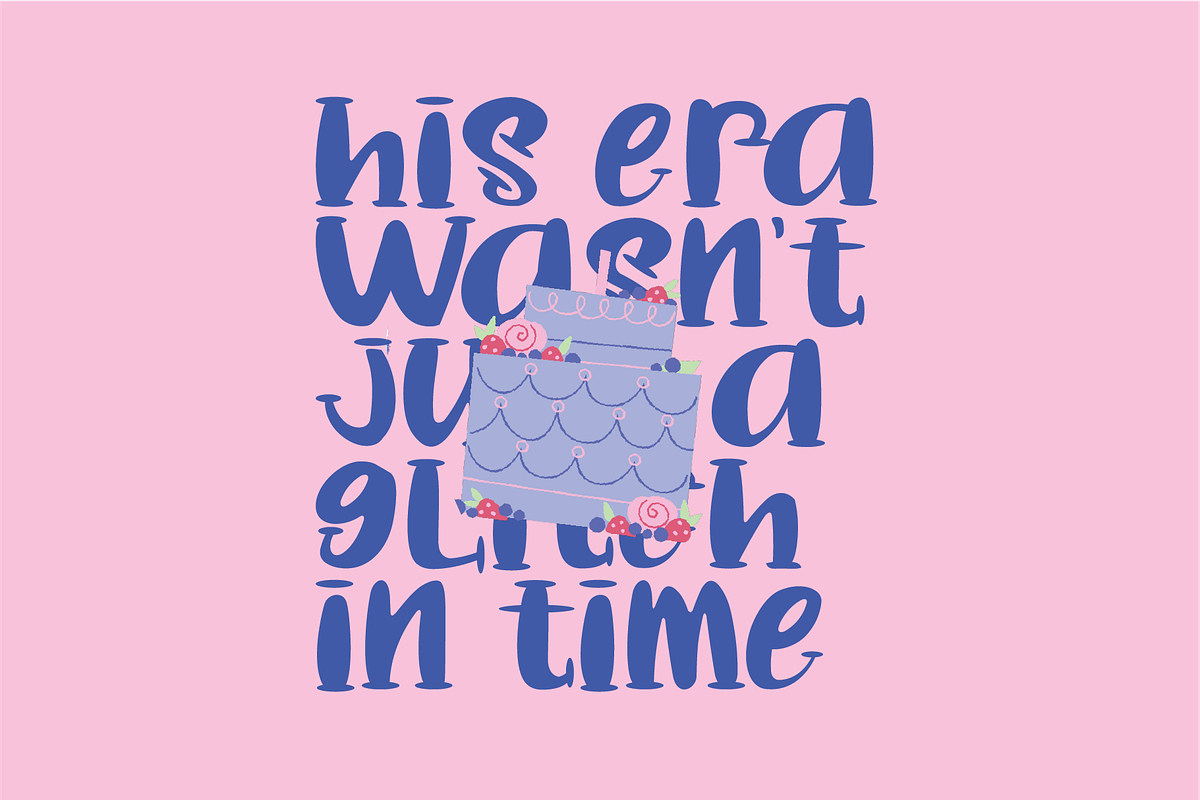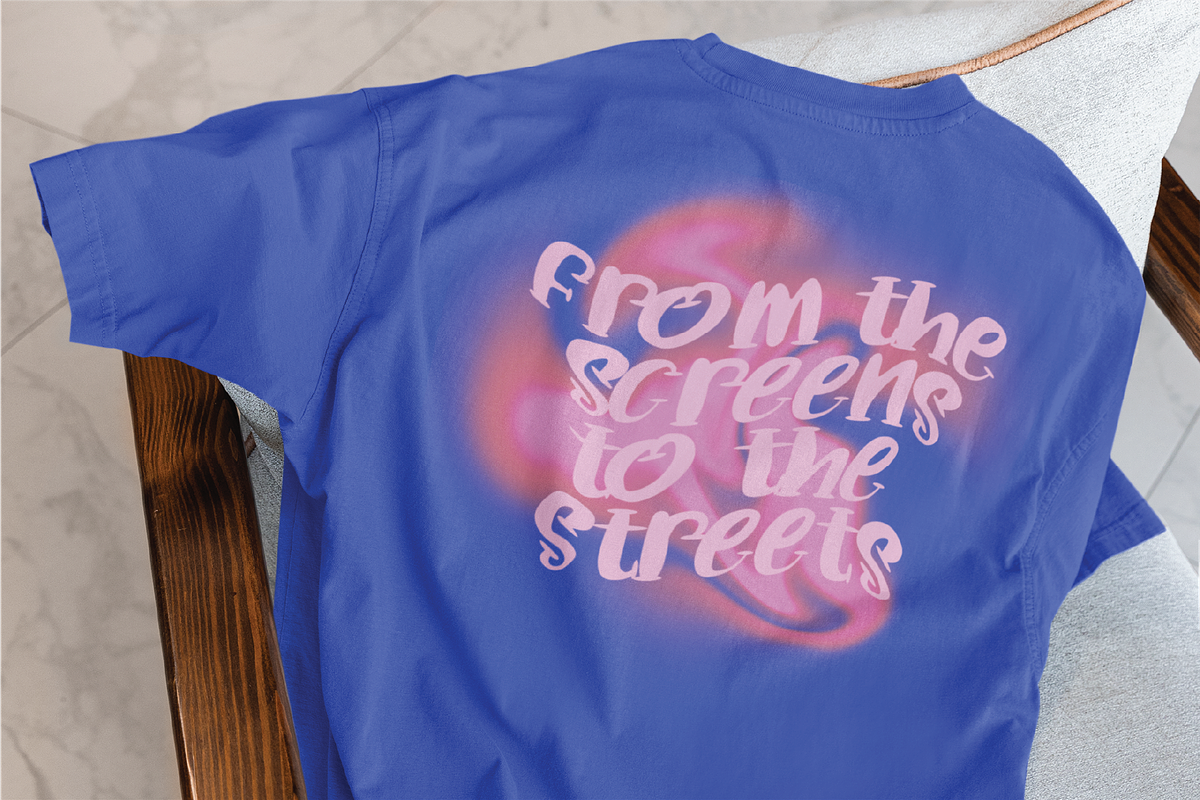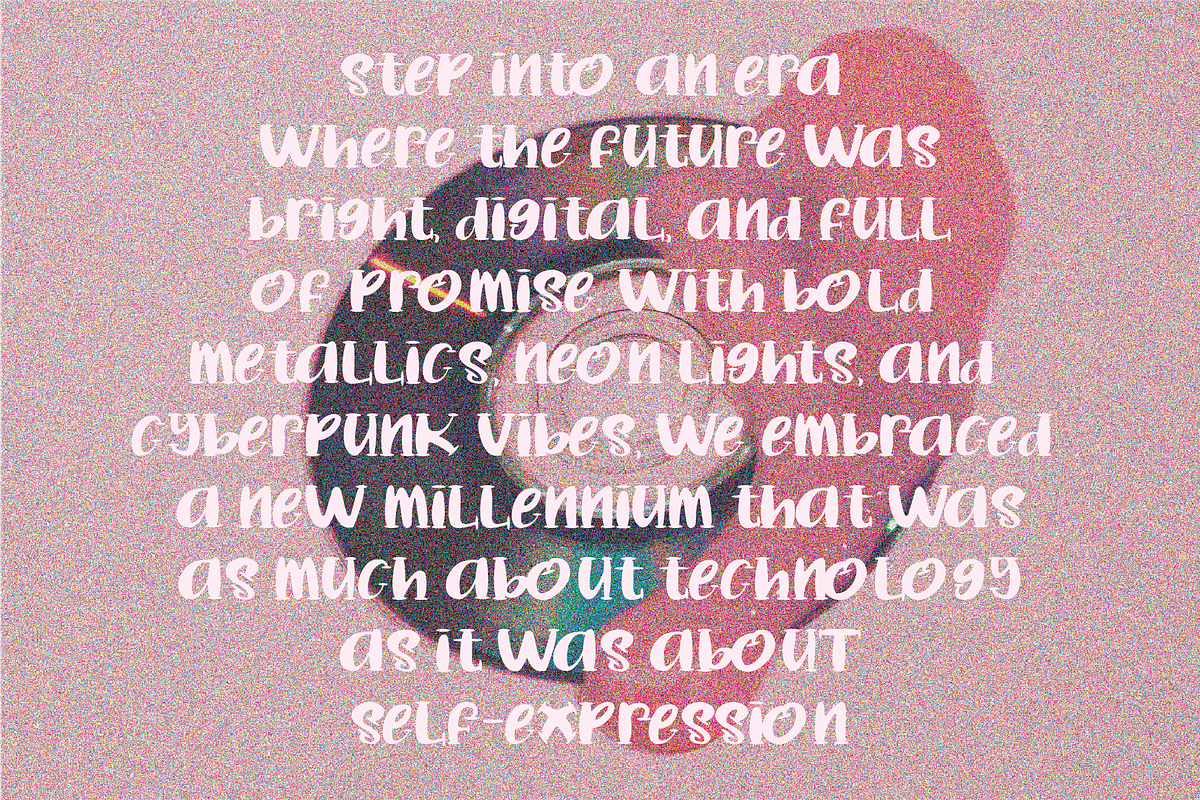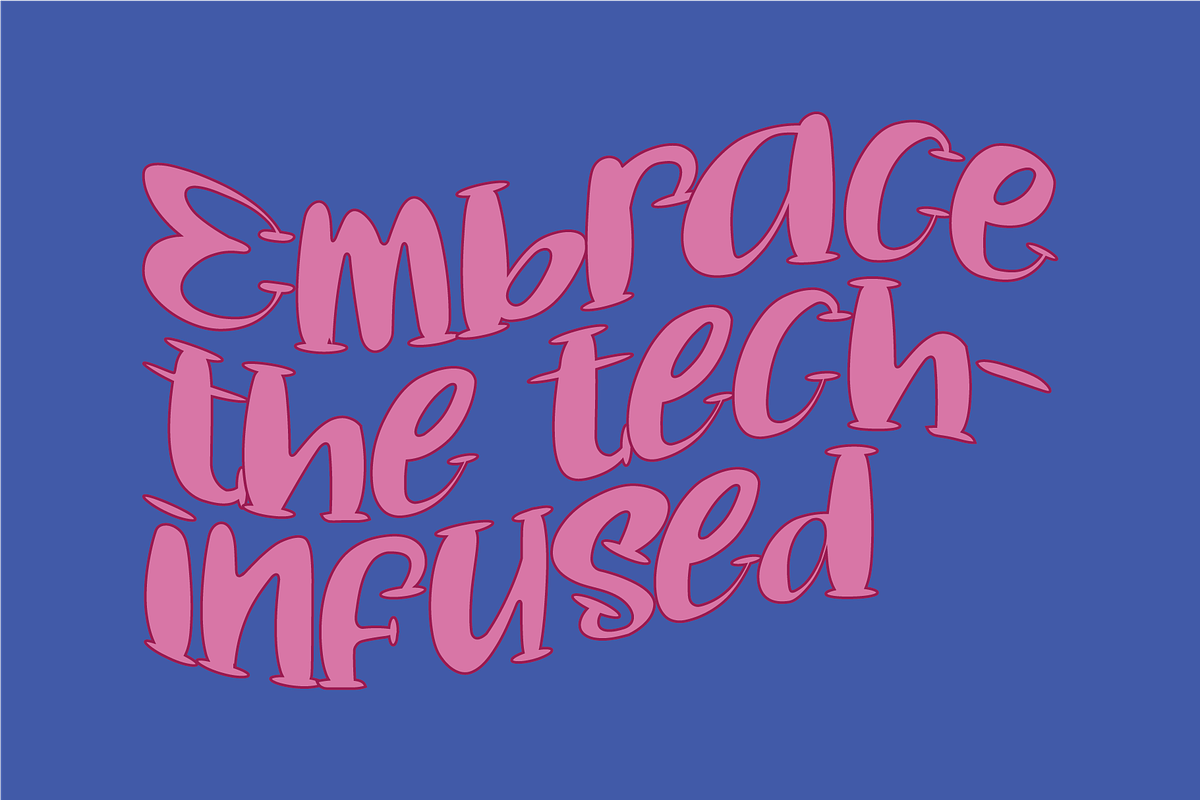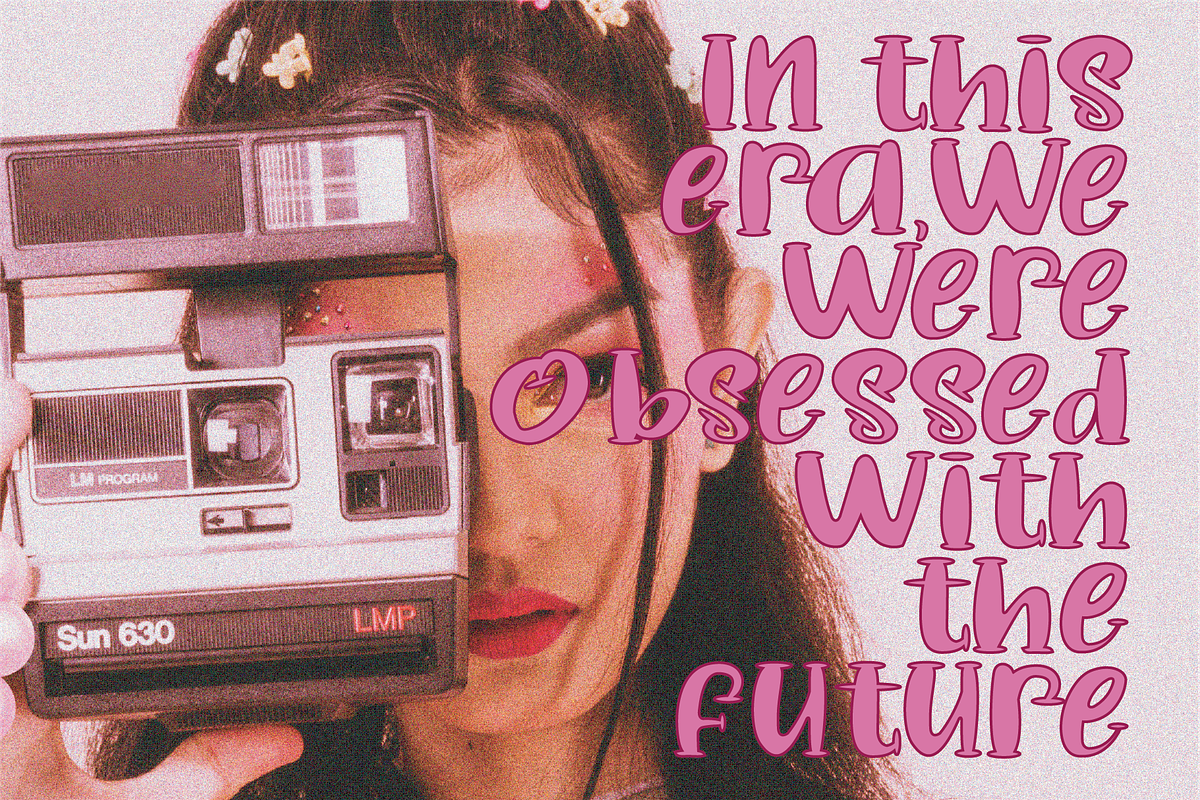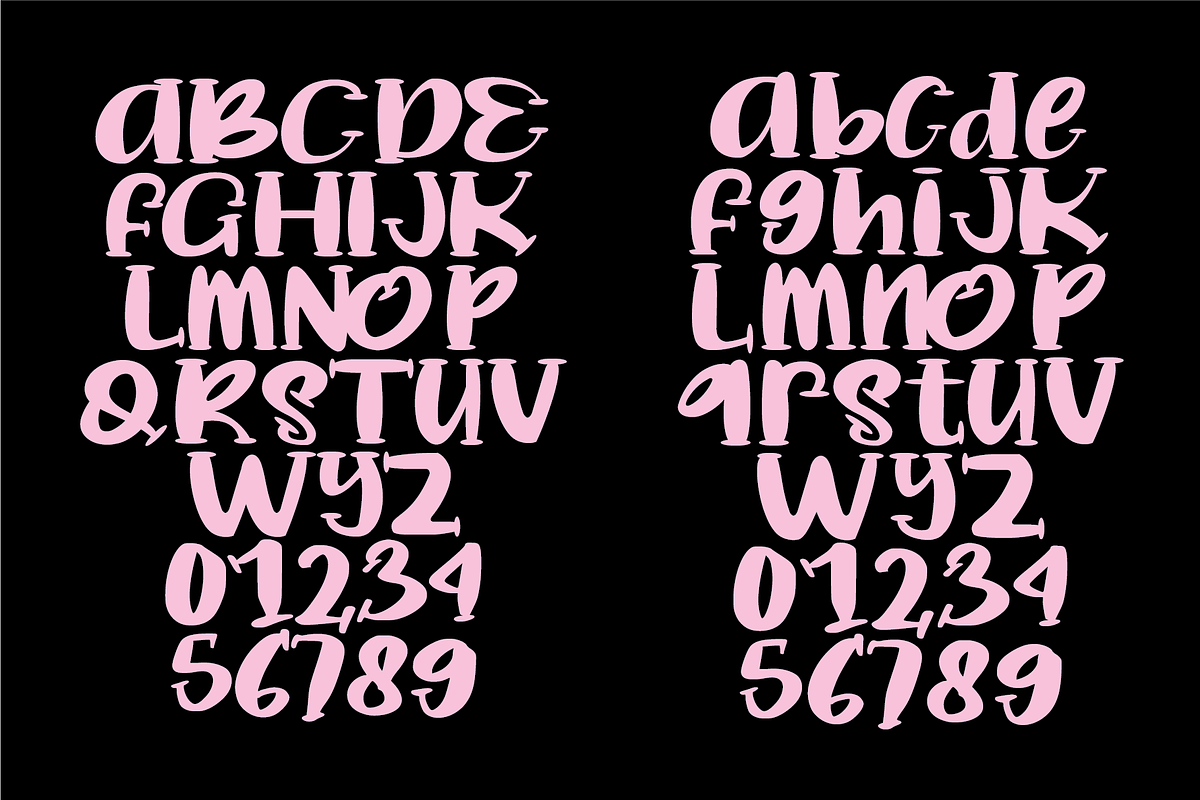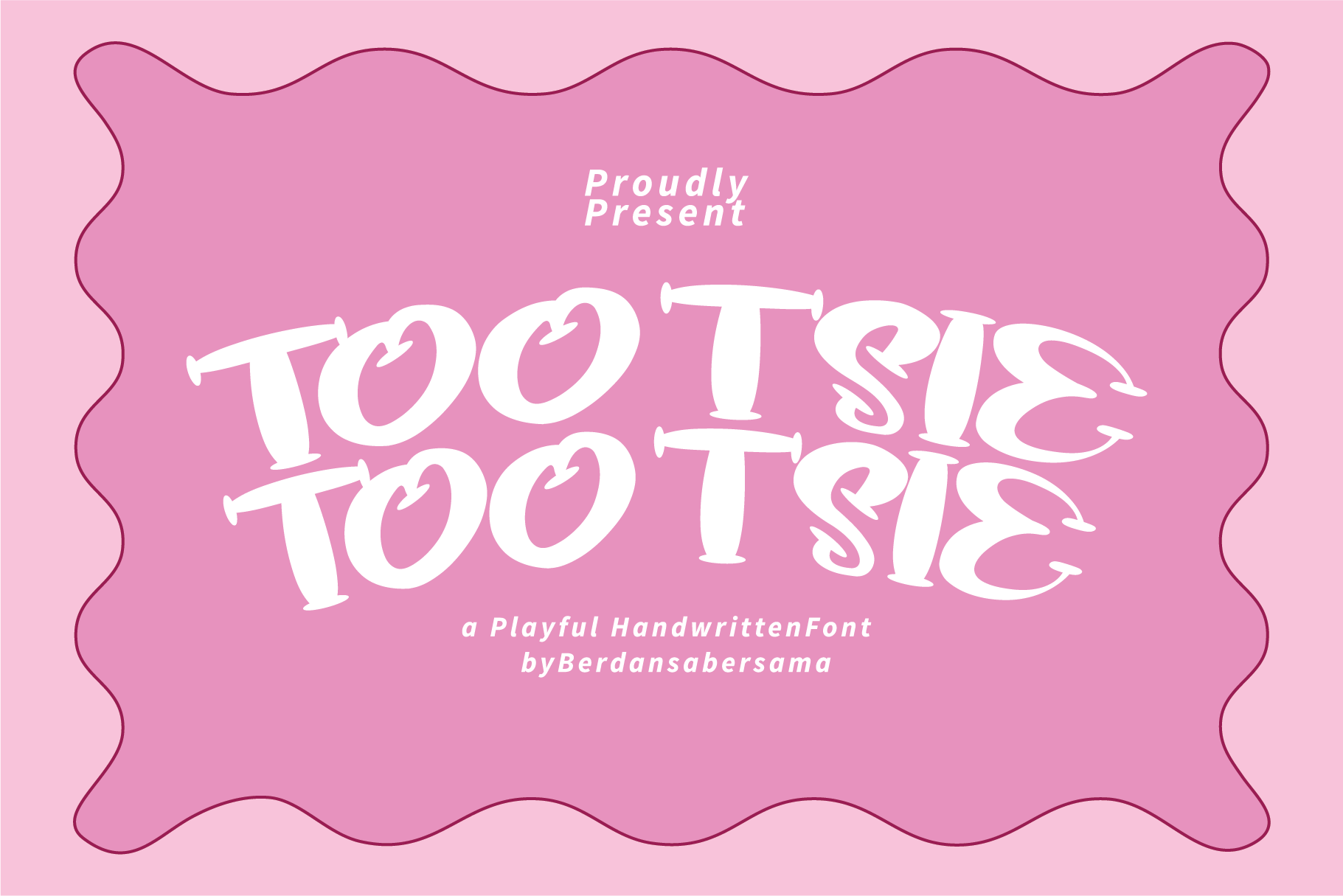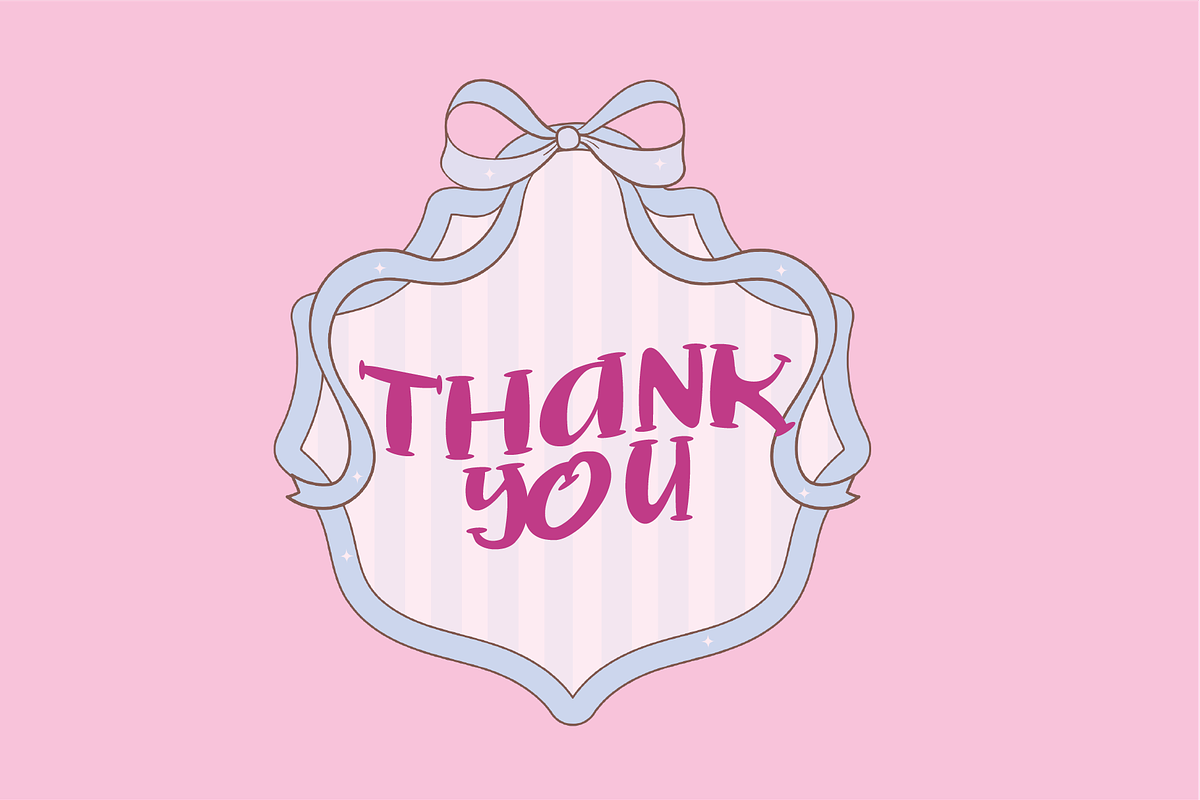
Tootsie Playful Handwritten Font
Tootsie is a bold, playful display font with energetic curves and fun, exaggerated shapes. Its chunky strokes and bouncy letterforms give the text a cheerful, lively personality, making every word feel full of motion and attitude.